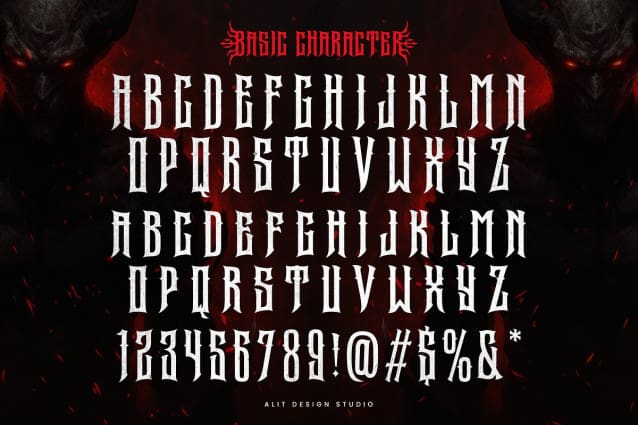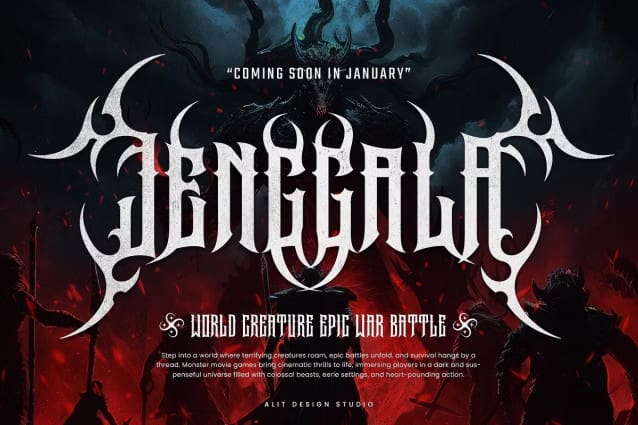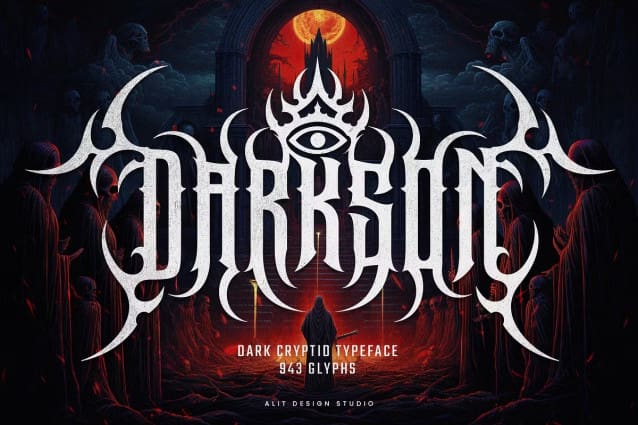
Darkson Font
Darkson Font is a sinister and brutal font designed to bring your death metal visions to life. Every character is steeped in cruel elegance, featuring jagged horns, entangled roots, razor-sharp thorns, and the haunting presence of Illuminati-inspired eyes.
Perfect for album covers, band logos, merchandise, posters, and anything that craves a touch of firm, dark energy, Darkson Typeface embodies the chaos and beauty of the abyss.